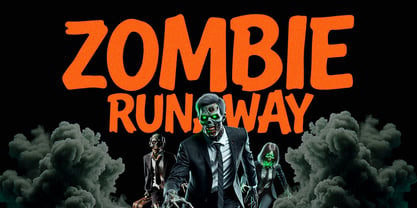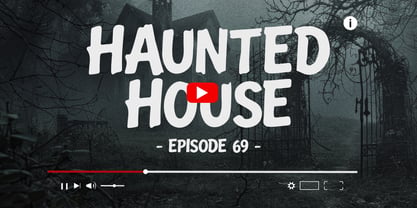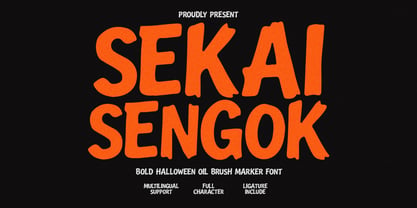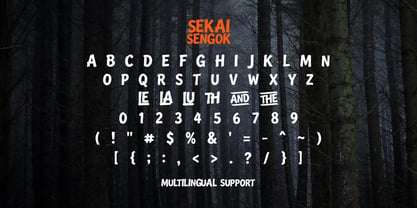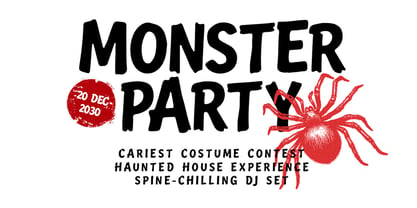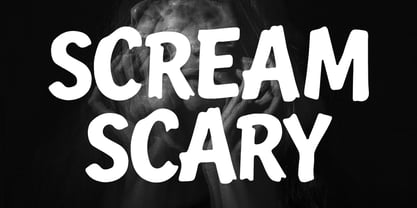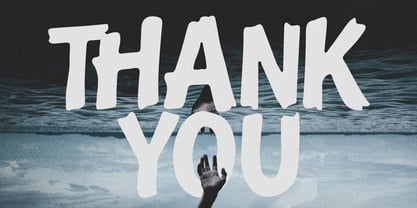
Sekai Sengok
von Maulana Creative
Die Schriftfamilie Sekai Sengok wurde von Gilang Maulana entworfen und von Maulana Creative veröffentlicht. Sekai Sengok enthält 1 Stile. Mehr über diese Familie
Bring a spine-chilling and energetic vibe to your designs with Sekai Sengok, a bold oil brush marker font meticulously crafted to deliver a raw, textured look. Its organic strokes and heavy presence capture an authentic hand-painted feel, making it an excellent choice for horror movie titles, Halloween event promotions, spooky party invitations, digital book covers, and theatrical posters. Armed with strong multilingual support, uppercase letters, numbers, and standard punctuation, this versatile typeface effortlessly injects a scary yet fun attitude into any creative visual project.
Designer: Gilang Maulana
Foundry: Maulana Creative